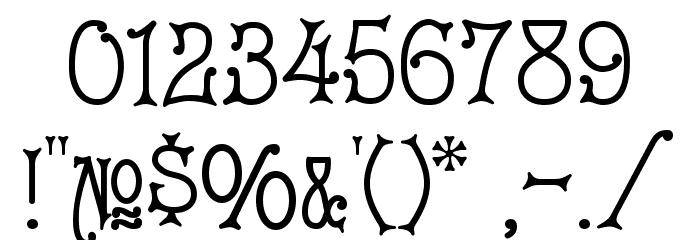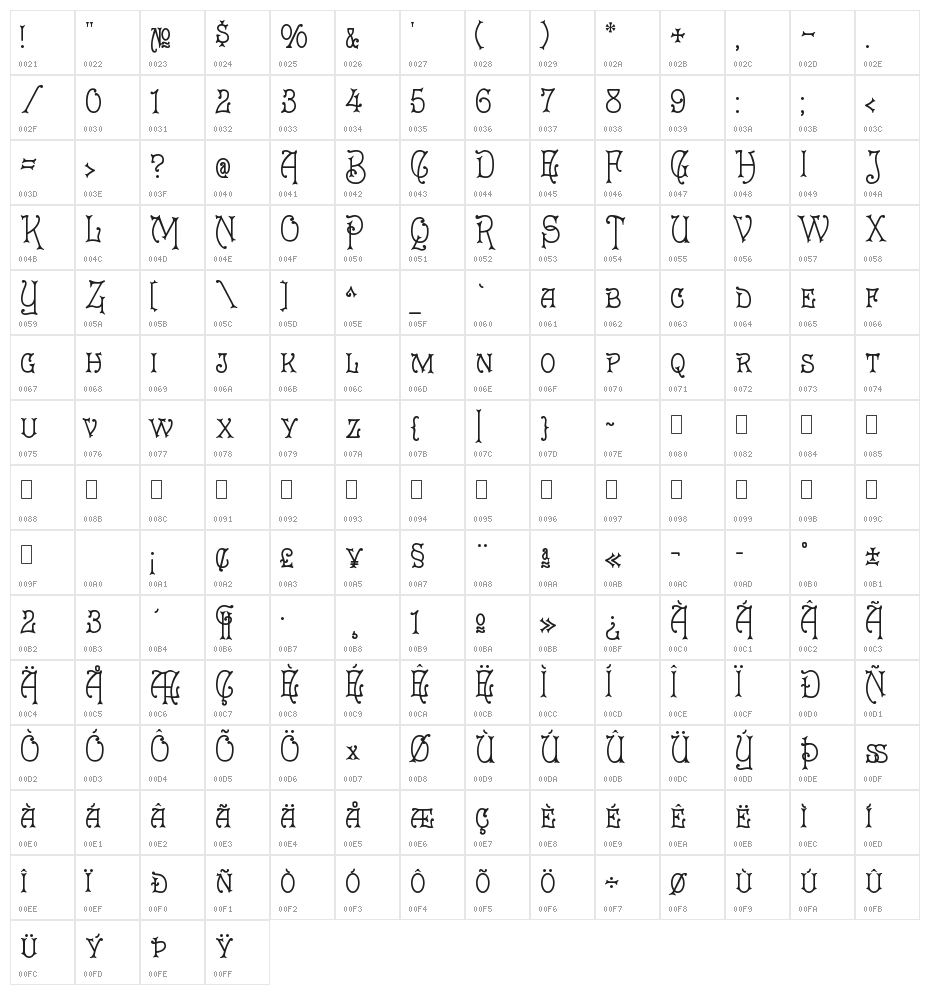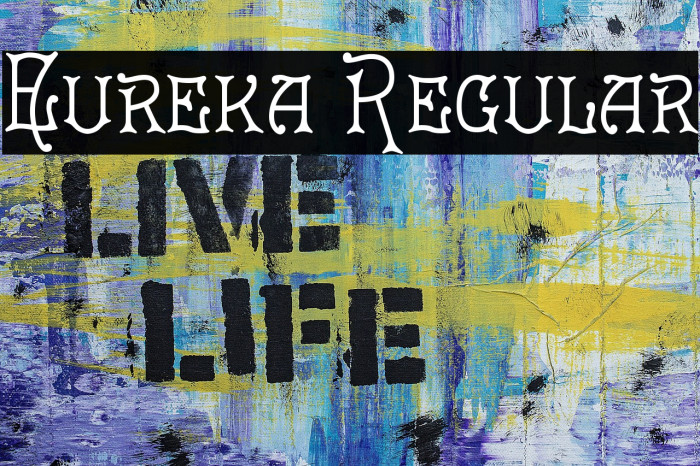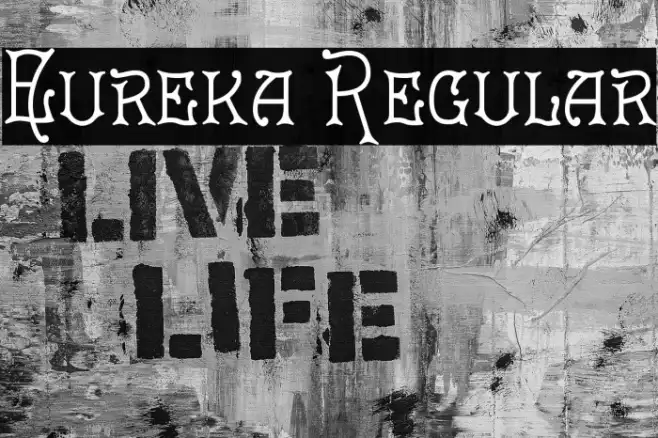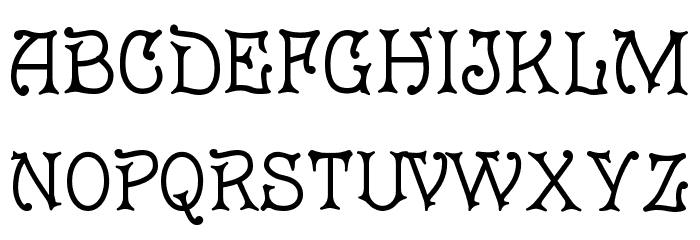
This font features a unique and decorative style with intricate details and flourishes that give it a distinct, artistic appearance. The uppercase letters are particularly ornate, with exaggerated serifs and curves that create a sense of elegance and sophistication. The lowercase letters maintain a similar decorative quality, ensuring consistency throughout the typeface. Numbers and special characters are designed with the same attention to detail, making this font versatile for various creative applications. Its overall design is reminiscent of vintage or historical scripts, yet it maintains a modern flair that makes it suitable for contemporary use.
| Overall Style | Vintage, Decorative |
| Proposed Projects | Ideal for branding, invitations, posters, and any project requiring a touch of elegance and sophistication. |